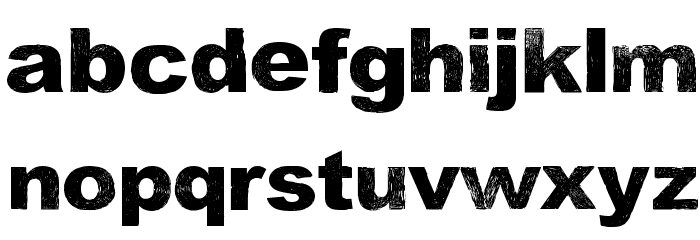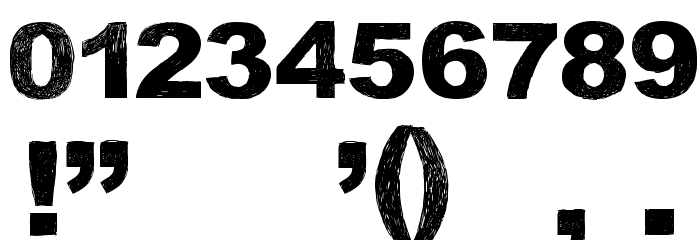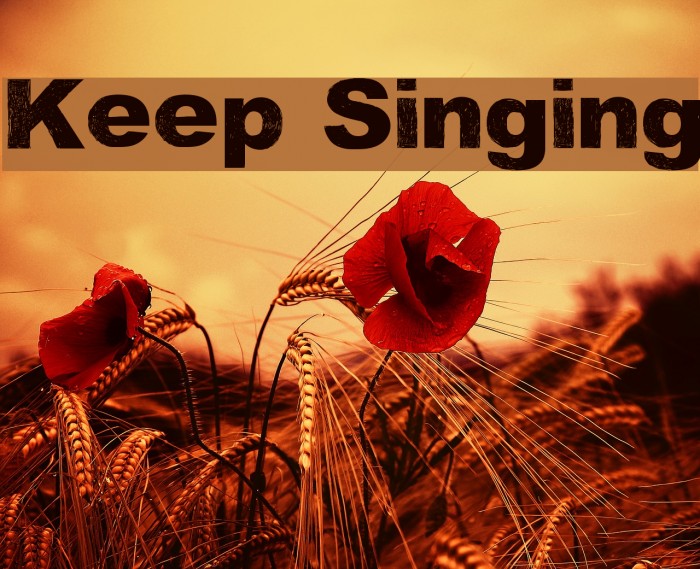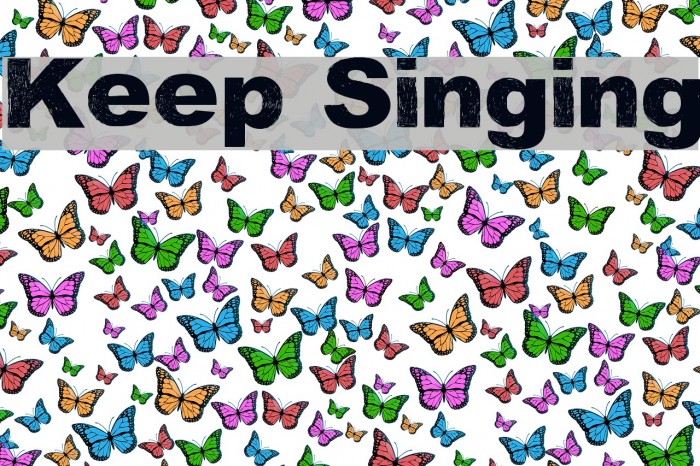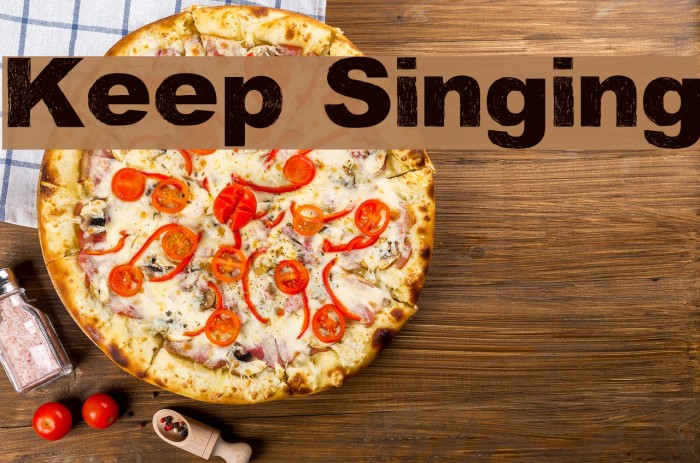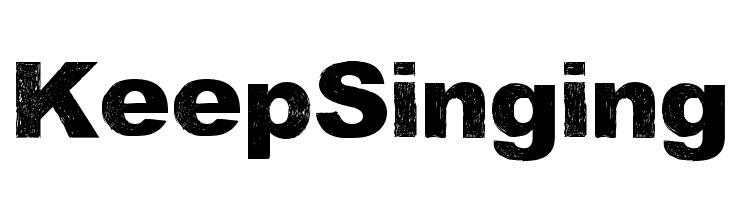
Keep Singing Font
This font features a bold and distressed style, giving it a rugged and textured appearance. The uppercase and lowercase letters are uniformly bold, with a slightly rough texture that suggests a worn or vintage look. The numbers and special characters maintain this distressed style, providing a cohesive aesthetic throughout the character set. The font's boldness and texture make it stand out, suitable for projects that require a strong visual impact. Its design is reminiscent of vintage or retro themes, making it ideal for creative and artistic applications.
A bold, distressed font with a rugged, vintage appearance.
- Proposed Projects: Ideal for posters, album covers, branding, and any design requiring a vintage or distressed look.
- Overall Style: Vintage